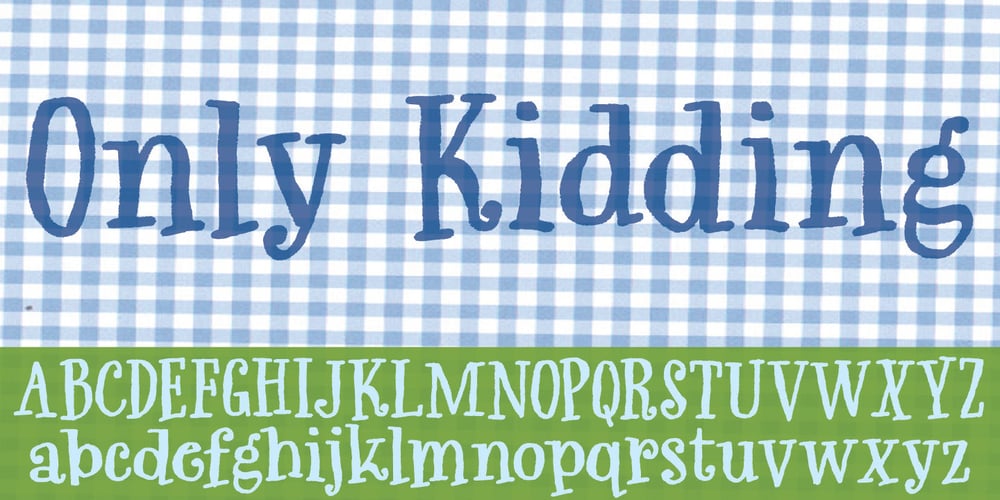
Only Kidding
Only Kidding font
Only Kidding Font Family was designed by Jakob Fischer and published by PizzaDude.dk. Only Kidding contains 1 styles and family package options. Massive text suits my Only Kidding very well. Even at small sizes it is super legible, and it really keeps that handmade image. At larger sizes the crunchiness really comes forward and may surprise you how detailed edges the letters has got! I am going to use this font for one of my children’s books – I am thinking something adventure-ish! What you think? Comes with fi and fl ligatures and double letter substitutions!